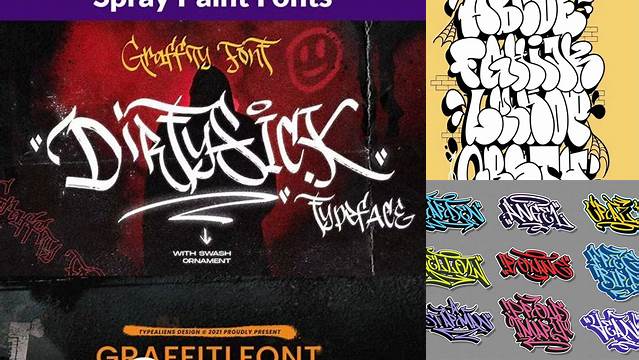
Graffiti Fonts: Free Styles To Download Now
Graffiti, an art form born in the urban landscapes, has evolved from rebellious markings to a recognized artistic expression. Capturing the raw energy and unique style of graffiti in digital designs requires the perfect font. A graffiti free font can be a game-changer, allowing you to infuse your projects with an authentic urban edge without spending a dime. But with so many options out there, how do you choose the best one? And how can you use these fonts effectively to create stunning designs? In this comprehensive guide, we'll delve into the world of graffiti fonts, exploring the characteristics, best uses, and where to find the best free options.
What Makes a Font Graffiti?
Before diving into the specifics of free fonts, it's essential to understand what defines a graffiti typeface. Graffiti fonts aim to replicate the distinct visual elements of street art, capturing its boldness, dynamism, and often rebellious spirit. These fonts typically exhibit several key characteristics:
- Bold and Expressive Strokes: Graffiti lettering is characterized by thick, strong lines that convey a sense of power and immediacy. These strokes often vary in width, adding a hand-drawn, organic feel to the font. Think of the way a spray can leaves a trail – that's the essence of a great graffiti font.
- Irregular Forms and Shapes: Unlike more formal typefaces, graffiti fonts often feature letters with unconventional shapes and forms. Some letters might be slanted, stretched, or even partially distorted, giving the font a unique, edgy look. This irregularity is a crucial part of the graffiti aesthetic, reflecting the spontaneous nature of street art.
- Dripping and Splatter Effects: Many graffiti fonts incorporate elements that mimic the look of dripping paint or splatters, further enhancing the visual connection to street art. These effects can add texture and depth to your designs, making them feel more authentic and visually interesting. Imagine the iconic drips of a fresh tag – that's the kind of detail that makes a graffiti font stand out.
- Aggressive and Energetic Style: Graffiti fonts are inherently bold and attention-grabbing. They're designed to make a statement, and their visual style reflects this. The use of sharp angles, overlapping lines, and other dynamic elements contributes to the overall aggressive and energetic feel of these fonts. This makes them perfect for projects that need to convey a strong message or capture a sense of urgency.
- Variations in Letter Connections: The way letters connect (or don't connect) is another crucial aspect of graffiti fonts. Some fonts feature letters that flow seamlessly into each other, while others have distinct breaks and overlaps. These variations add visual interest and mimic the diverse styles found in real-world graffiti. Think of the fluid, interconnected letters of a bubble letter tag versus the sharp, disconnected forms of a wildstyle piece.
The Psychology Behind Graffiti Fonts
Using a graffiti style font goes beyond just aesthetics; it taps into a specific psychology. These fonts often evoke feelings of rebellion, urban culture, and individuality. They're associated with creativity, nonconformity, and a raw, unfiltered form of expression. Understanding these associations is key to using graffiti fonts effectively.
For example, a graffiti font might be perfect for a promotional campaign targeting a younger demographic or for a product associated with extreme sports or urban fashion. The font's edgy and energetic style can resonate with these audiences, conveying a sense of authenticity and cool. On the other hand, using a graffiti font in a formal or corporate context might feel out of place, as it could clash with the brand's image and message.
Exploring Different Styles of Graffiti Fonts
Just like graffiti itself, graffiti fonts come in a variety of styles, each with its own unique characteristics and applications. Understanding these styles can help you choose the perfect font for your project.
- Tag Fonts: These fonts are designed to mimic the simple, handwritten style of graffiti tags. They often feature thin, flowing lines and a casual, almost潦草 appearance. Tag fonts are ideal for creating a raw, authentic feel in your designs. Think of the quick, spontaneous tags you see on city walls – that's the essence of a tag font.
- Throw-up Fonts: Throw-ups are larger, more elaborate tags, often done quickly using bubble letters. Throw-up fonts capture this style, featuring rounded, inflated letterforms that are bold and eye-catching. These fonts are great for headlines and titles that need to grab attention.
- Wildstyle Fonts: Wildstyle is a highly complex and intricate form of graffiti, characterized by overlapping letters and abstract shapes. Wildstyle fonts are similarly complex, often difficult to read at first glance. They're best used sparingly, as decorative elements or for creating a strong visual impact. Imagine the elaborate, almost architectural structures of a wildstyle piece – that's the kind of complexity these fonts capture.
- Stencil Fonts: Stencil graffiti is created using stencils, resulting in clean, sharp lines and a more structured appearance. Stencil fonts mimic this style, featuring letters with distinct outlines and a slightly industrial feel. These fonts are versatile and can be used in a variety of contexts, from posters to logos.
- Bubble Letter Fonts: As mentioned earlier, bubble letters are rounded, inflated letterforms that are commonly used in throw-ups. Bubble letter fonts are fun and playful, perfect for designs that need a lighthearted, casual feel. They're great for posters, flyers, and other promotional materials.
Where to Find Graffiti Free Fonts
Now that you understand the characteristics and styles of graffiti fonts, let's explore where you can find them for free. The internet is a treasure trove of free resources, but it's essential to choose reputable sources to ensure the quality and legality of the fonts you download. Here are some of the best places to find graffiti style fonts for free:
- DaFont: DaFont is a massive online archive of free fonts, with a dedicated section for graffiti fonts. You'll find a wide variety of styles here, from simple tag fonts to complex wildstyle designs. DaFont is a great place to start your search, as it offers a vast selection and a user-friendly interface.
- FontSpace: FontSpace is another popular font website with a large collection of free fonts, including many graffiti options. The site allows you to easily filter fonts by category, style, and license, making it easy to find what you're looking for. FontSpace also has a community forum where you can ask questions and get advice from other designers.
- 1001 Fonts: 1001 Fonts offers a wide range of free and commercial fonts, with a good selection of graffiti styles. The site's search filters and previews make it easy to browse and find the perfect font for your project. 1001 Fonts also offers bundles and deals on commercial fonts, which can be a great way to expand your font library.
- Urban Fonts: As the name suggests, Urban Fonts specializes in urban and street-style fonts, making it a great resource for graffiti options. The site offers both free and premium fonts, with a focus on high-quality designs. Urban Fonts is a good choice if you're looking for fonts that are specifically designed for urban-themed projects.
- Behance: Behance is a platform for showcasing creative work, and many designers share their free fonts on the site. Searching for "graffiti font free" on Behance can uncover some unique and high-quality options. Behance is a great place to discover fonts from independent designers and support the creative community.
Licensing Considerations
When downloading free fonts, it's crucial to pay attention to the licensing terms. While many free fonts are available for personal use, commercial use may require a license or attribution. Always check the font's license agreement before using it in a commercial project to avoid copyright infringement.
Most font websites clearly state the license terms for each font. Look for terms like "free for personal use," "free for commercial use," or "requires attribution." If you're unsure about the license, it's always best to contact the font designer or website for clarification.
How to Use Graffiti Fonts Effectively
Choosing the right graffiti font for free is only the first step. To create truly impactful designs, you need to use these fonts effectively. Here are some tips for incorporating graffiti fonts into your projects:
- Consider the Context: Graffiti fonts are not suitable for every project. They work best in designs that need a bold, edgy, or urban feel. Think about the message you're trying to convey and whether a graffiti font is the right choice for your target audience.
- Use Sparingly: Graffiti fonts are visually impactful, so it's best to use them sparingly. Overusing them can make your design look cluttered and overwhelming. Stick to using graffiti fonts for headlines, titles, or other key elements, and pair them with more legible fonts for body text.
- Pair Wisely: Choosing the right font to pair with your graffiti font is crucial for creating a balanced and visually appealing design. Consider using a clean, sans-serif font for body text to contrast with the bold, expressive style of the graffiti font. This will help to create a clear visual hierarchy and make your design more readable.
- Experiment with Colors and Effects: Graffiti art is often characterized by vibrant colors and bold effects. Don't be afraid to experiment with different color combinations and effects when using graffiti fonts. Consider adding shadows, outlines, or textures to enhance the visual impact of the font.
- Think About Readability: While graffiti fonts are designed to be visually striking, it's important to ensure that your text is still readable. Avoid using overly complex or distorted fonts for large blocks of text, and make sure there is enough contrast between the font color and the background.
Case Studies: Graffiti Fonts in Action
To further illustrate the effective use of graffiti fonts, let's look at some examples of how they've been used in real-world projects:
- Streetwear Branding: Graffiti fonts are a natural fit for streetwear brands, as they capture the urban and rebellious spirit of street culture. Many streetwear brands use graffiti fonts in their logos, website designs, and marketing materials to create a strong brand identity.
- Music Album Art: Graffiti fonts are often used in music album art, particularly for genres like hip-hop and punk rock. The fonts' edgy and energetic style complements the music's themes and creates a visually striking package.
- Event Posters: Graffiti fonts are a great choice for event posters, especially for events that target a younger demographic or have an urban theme. The fonts' bold and attention-grabbing style can help to promote the event and attract attendees.
- Gaming Graphics: The raw and dynamic aesthetic of graffiti fonts makes them suitable for gaming graphics. They can add an urban and edgy feel to game titles, menus, and in-game text.
Level Up Your Designs with Graffiti Fonts
Free graffiti fonts are a powerful tool for designers looking to add an urban edge to their projects. By understanding the characteristics, styles, and best uses of these fonts, you can create visually stunning designs that capture the spirit of street art. Whether you're designing a logo, a poster, or a website, a well-chosen graffiti font can help you make a bold statement and stand out from the crowd. So, go ahead, explore the world of graffiti fonts, and unleash your inner street artist!
Remember, finding the perfect font is about more than just aesthetics. It's about understanding the message you want to convey and choosing a font that effectively communicates that message to your audience. With the right graffiti font, you can create designs that are not only visually appealing but also meaningful and impactful.